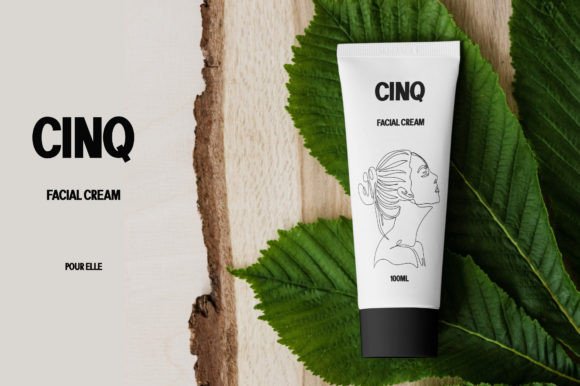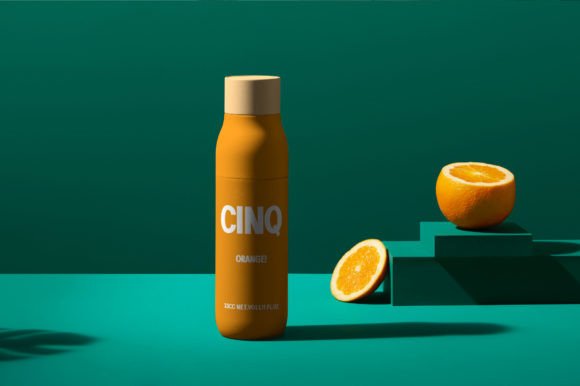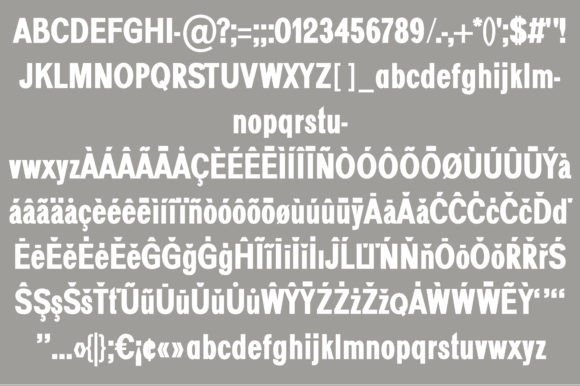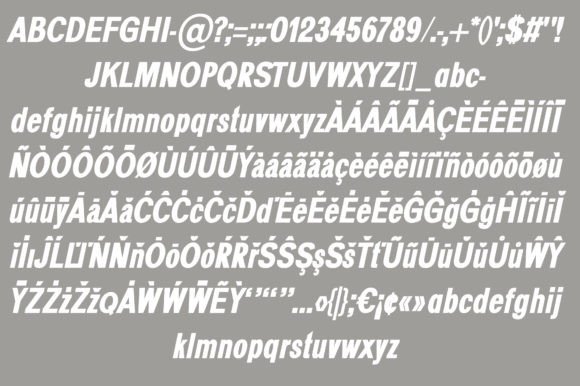
The Power of Distinction: Unlocking the Potential of Cinq Font
Have you ever stared at a blank canvas, waiting for the perfect idea to strike? The moment of creative clarity is a thrill like no other, and it’s exactly what happened when designers first laid eyes on Cinq Font. This tall condensed modern grotesque typeface is more than just a font – it’s a game-changer. Its sans serif aspect and tight spacing create a sense of urgency, drawing the viewer’s eye and demanding attention.
Cinq Font is the perfect tool for designers who want to make a statement. Heavily inspired by Swiss typeface rules, it’s a versatile and confident choice for any project. Whether you’re creating a bold advertisement or a striking title sequence, Cinq Font is sure to deliver.
Cinq Font Key Features
- Font Family: Cinq Font is a sans-serif font family designed for modern and clean typography.
- Unique Characteristics: Cinq Font features a unique blend of modern and geometric elements, making it suitable for a wide range of design applications, from corporate branding to digital interfaces.
- Font Variations: Cinq Font includes multiple font weights, from Light to Bold, and various font styles, such as Regular, Italic, and Bold Italic, for added flexibility.
- Scalability: Cinq Font is designed to be highly scalable, ensuring that it remains clear and legible at various font sizes and resolutions.
Cinq Font Review
Cinq Font is an elegant sans-serif font that aims to bring a touch of sophistication to digital designs. ✨ Here are some aspects that work well:
- Its clean and minimalist design makes it perfect for modern and sleek interfaces.
- Cinq Font is highly legible, even at small font sizes, which is crucial for digital displays.
- It offers a range of weights and styles, allowing designers to create visually appealing and dynamic typography.
- The font is highly versatile and can be used for various design projects, from web and mobile applications to print materials.
- ⚠️ Cinq Font may lack a distinct personality, making it less memorable than other fonts.
- Its simplicity might not be suitable for projects that require a bold or playful tone.
- The font family is relatively small, which may limit its potential for creative experimentation.
Overall, Cinq Font is a solid choice for designers who value simplicity and elegance. While it may not stand out from the crowd, it is a reliable and versatile font that can add a touch of sophistication to digital designs.
Cinq Font is ideal for use in:
Business cards and brochures
Marketing materials and flyers
Presentations and reports
Websites and e-books
Cinq Font is a high-quality font with advanced features such as ligatures, alternates, and swashes. It has a wide character set, including Latin, Cyrillic, and Greek alphabets, as well as punctuation and symbols. The font is designed to work well at various font sizes and resolutions, making it suitable for a range of applications, from print to digital media.